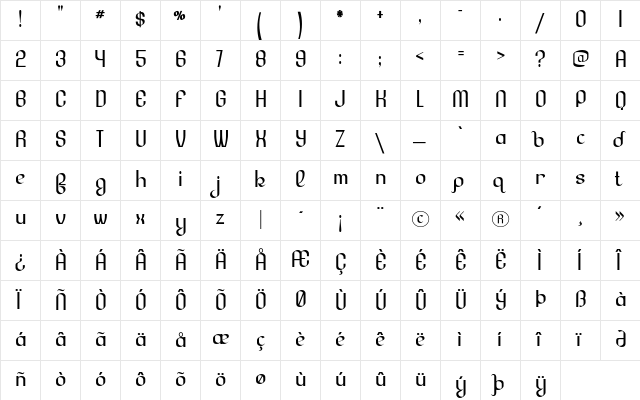
Lesser Concern Regular
Design Context for Lesser Concern Typeface
Lesser Concern is a composed and adaptable typeface that performs quietly and consistently across a wide range of design contexts.